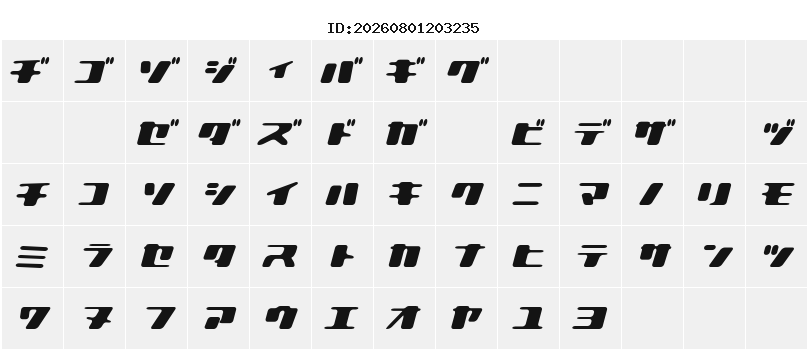
• Font Name: LBIlovely bold italic Kana
• Font Style: Kat
• Full Font Name: LBIlovely bold italic Kana Kat
About LBIlovely bold italic Kana.ttf
LBIlovely bold italic Kana.ttf is a modern, elegant sans-serif font designed for ultimate readability and visual harmony. Perfect for branding, headlines, web design, and print materials.